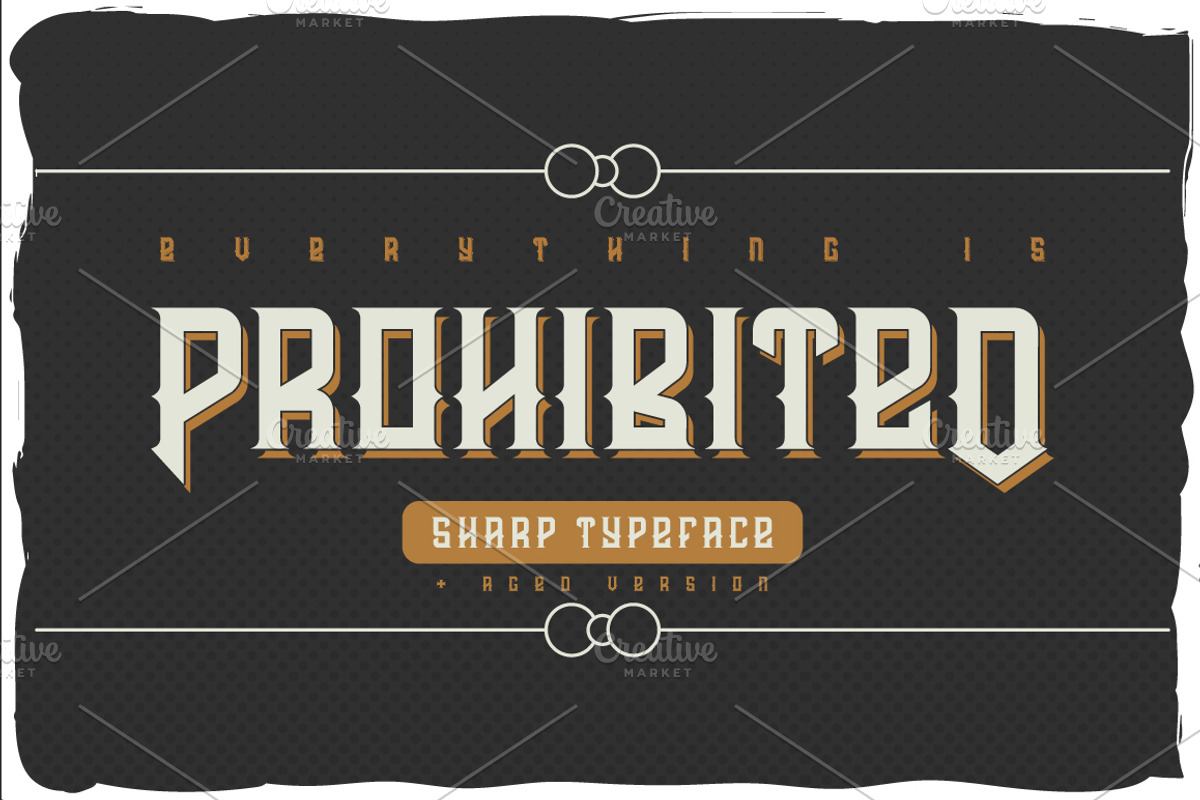
Prohibited Typeface is ideal for rebellious brand identity, underground music graphics, alternative fashion marketing, street art projects, punk rock album covers, counterculture publications, edgy advertising campaigns, and non-conformist design applications.
What makes Prohibited Typeface so exciting is its bold defiance of conventional design rules through raw, uncompromising letterforms that capture the essence of rebellion and anti-establishment aesthetics. This striking display typeface features distressed character shapes with aggressive styling that communicates authenticity, edge, and underground culture values. The font's rebellious spirit and unconventional approach make it perfect for brands and projects that need to challenge mainstream expectations and connect with alternative audiences.
The Prohibited Typeface family includes regular and distressed variations, along with alternative character sets and experimental elements that provide designers with comprehensive tools for creating authentic underground typography systems.
Prohibited Typeface Free Download presents designers with access to premium alternative typography that perfectly captures the raw energy and authentic spirit of counterculture movements. This distinctive typeface excels in applications where rebellion and authenticity are central brand messages, making it ideal for independent music labels, alternative fashion brands, underground venues, and creative collectives. The font's edgy character makes it particularly effective for youth-oriented brands, extreme sports companies, and cultural organizations targeting non-mainstream audiences.
The boldly crafted letterforms of Prohibited Typeface maintain functional readability while delivering maximum rebellious impact across various applications. Each character demonstrates authentic street-level design sensibility, creating text that appears genuinely underground rather than artificially edgy. This authenticity makes the font valuable for projects requiring genuine alternative culture credibility and anti-establishment messaging.
For alternative brand communication, Prohibited Typeface provides the perfect solution for organizations wanting to establish authentic connections with counterculture audiences through typography that reflects genuine rebellious values. The font's defiant character allows it to communicate independence and authenticity while appealing to audiences who reject mainstream design conventions across print, digital, and environmental applications where alternative typography enhances brand credibility and cultural positioning.